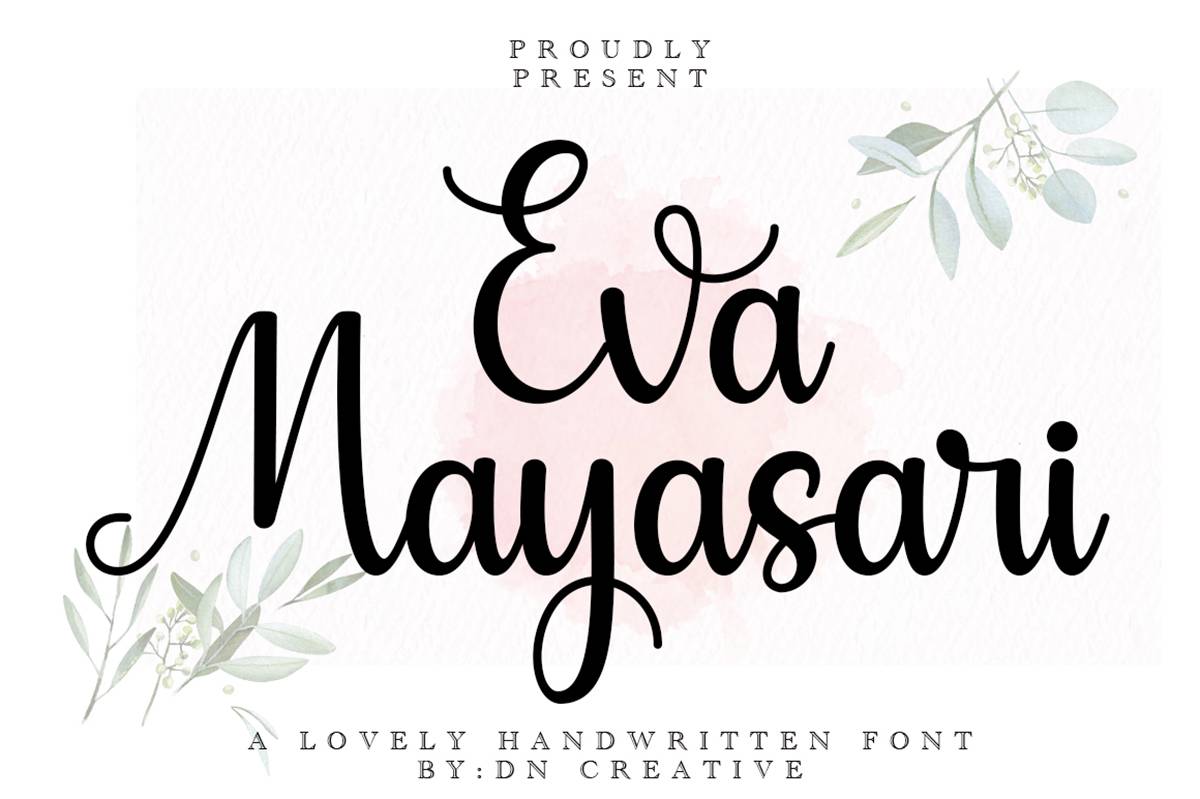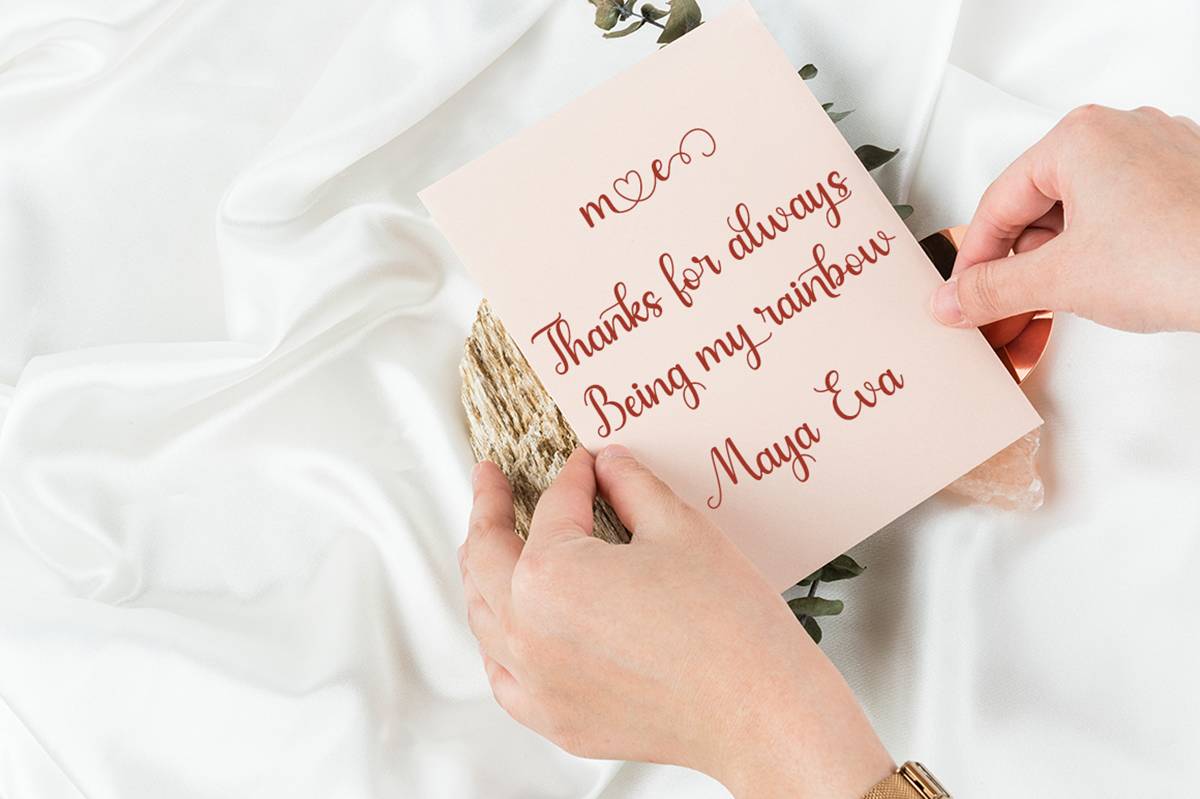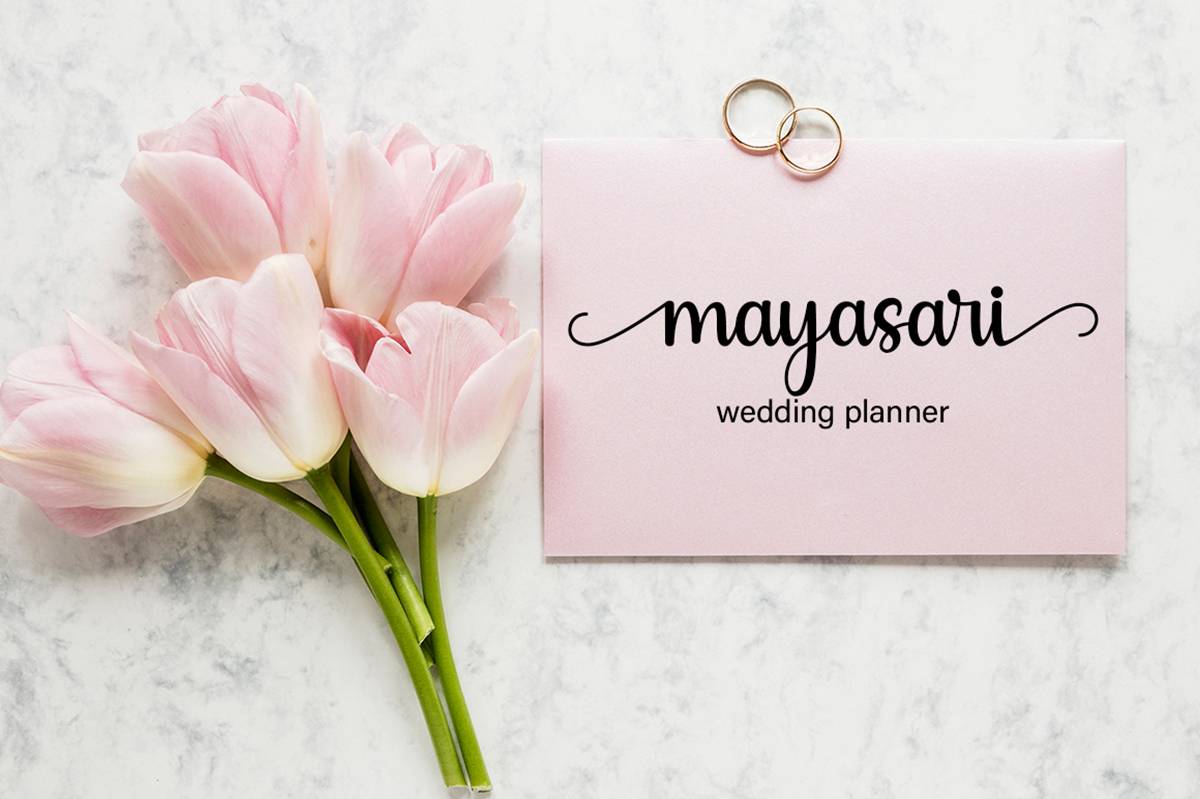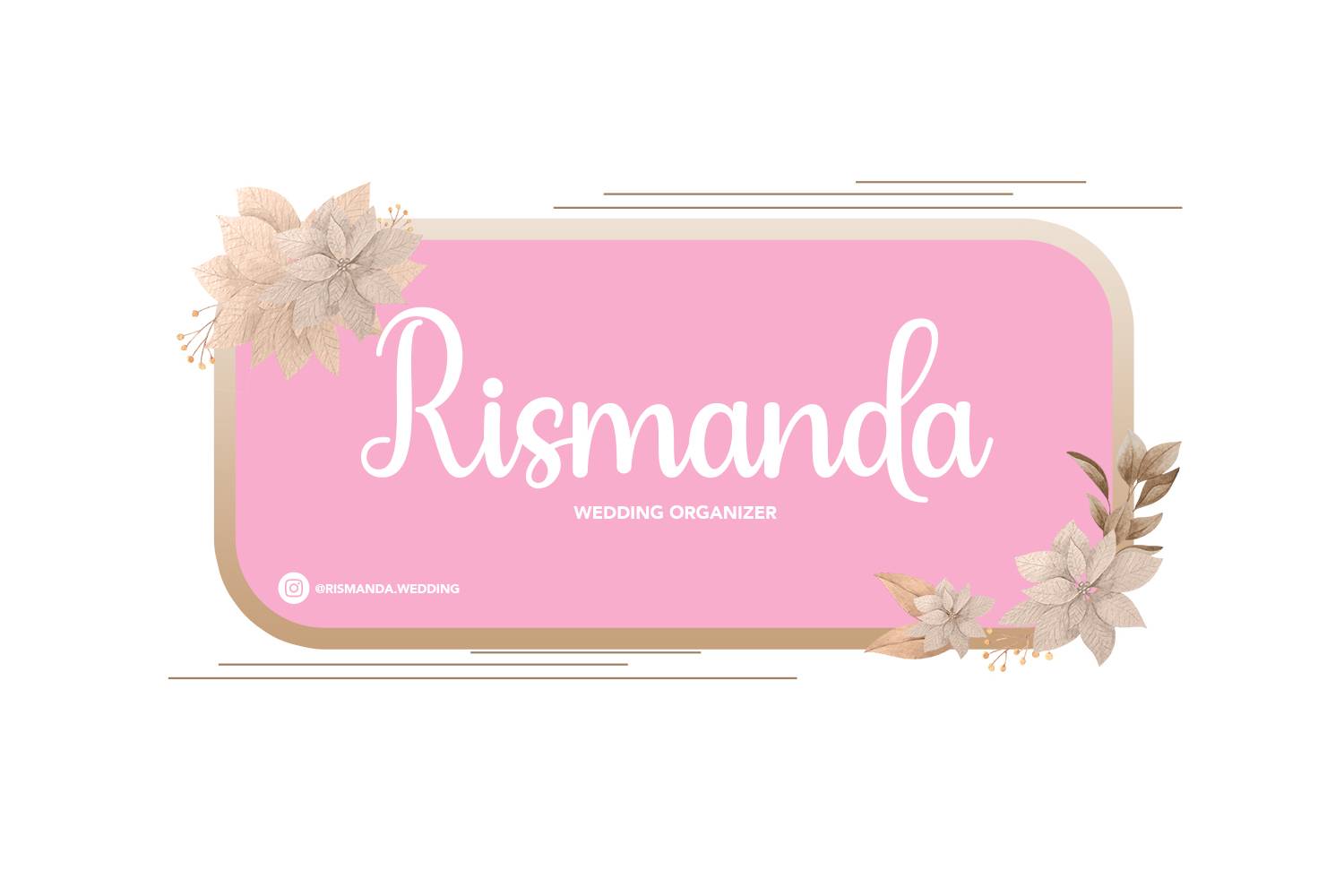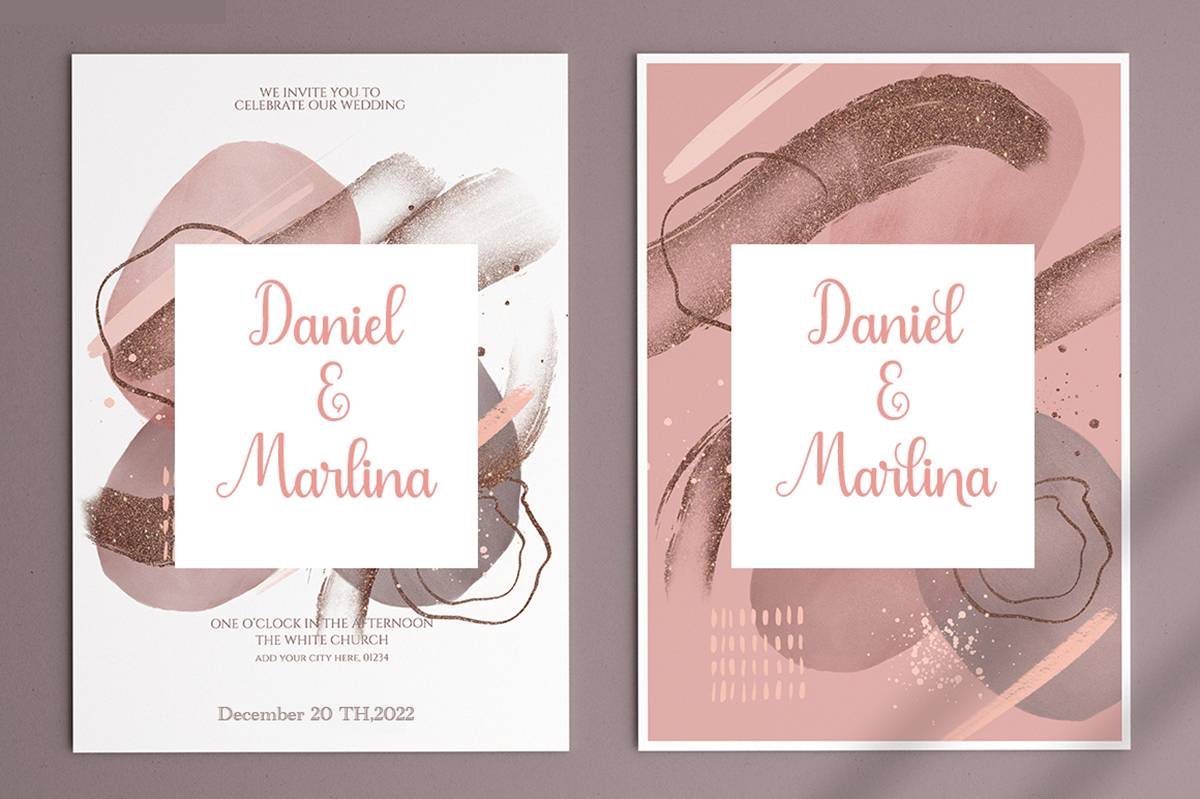
Eva Mayasari is a graceful script font characterized by its elegant, flowing strokes and moderate contrast, giving it a refined and feminine touch. With its slender letterforms and distinctive, playful curls especially visible in uppercase letters, it conveys a stylish yet approachable personality, making it ideal for branding, invitations, and decorative headlines where a sophisticated, personal feel is desired. This font combines charm and readability, perfect for projects seeking warmth and elegance.
Eva Mayasari Font